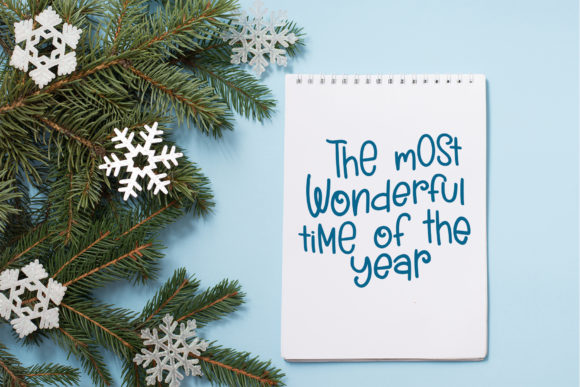
Winter Wishes Font
Winter Wishes is a quirky and fun handwritten font. Casual and trendy, this font will fit a wide variety of designs, both formal and informal.